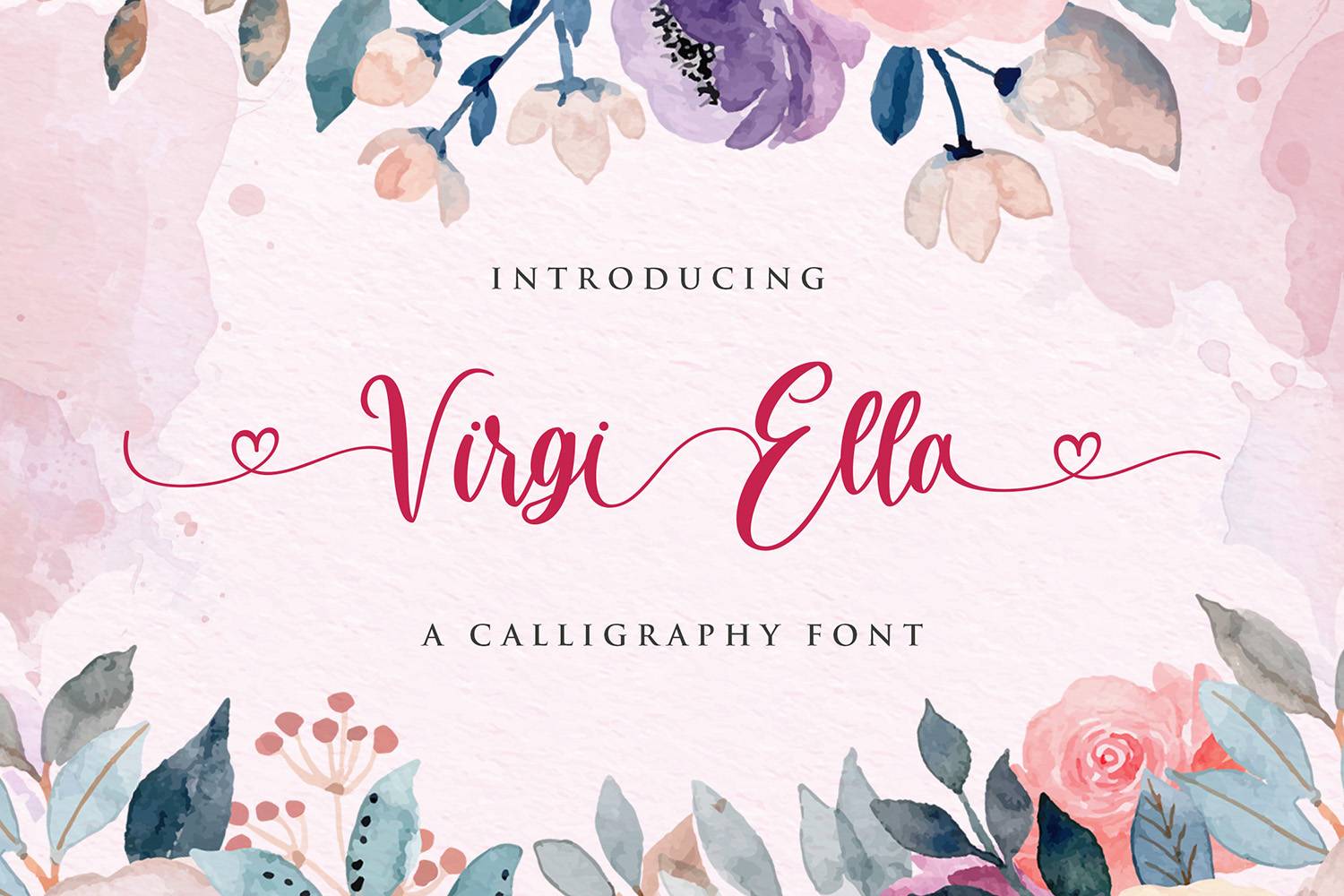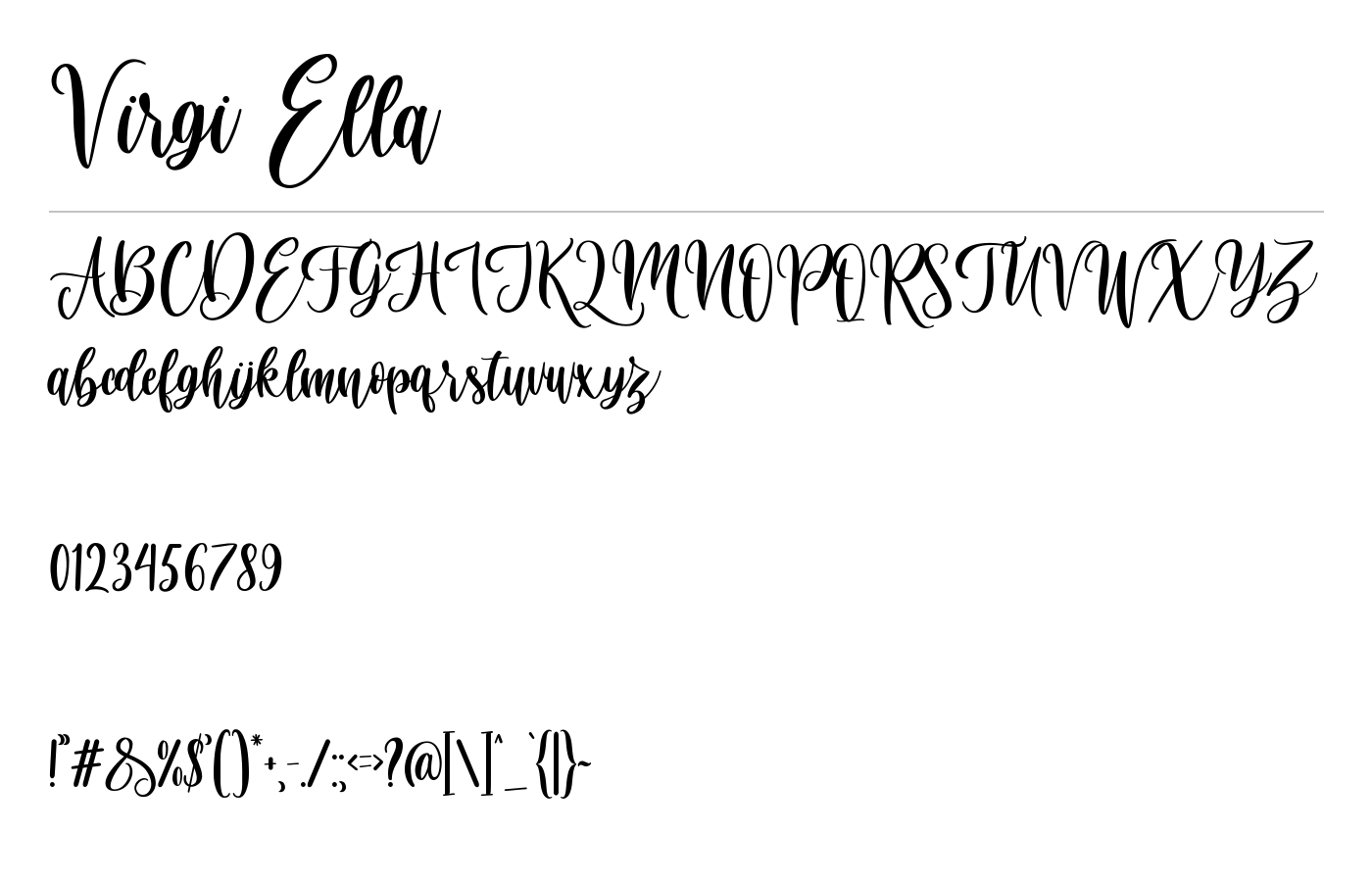
Virgi Ella is an elegant script font featuring flowing, connected letterforms with a lively, handcrafted feel. Its medium weight and moderate contrast create a stylish yet readable design, perfect for adding a touch of sophistication and charm to branding, invitations, and creative projects. This font works beautifully for fashion, wedding, and luxury designs where a graceful, personal touch is desired.
Virgi Ella Font
About Virgi Ella Font